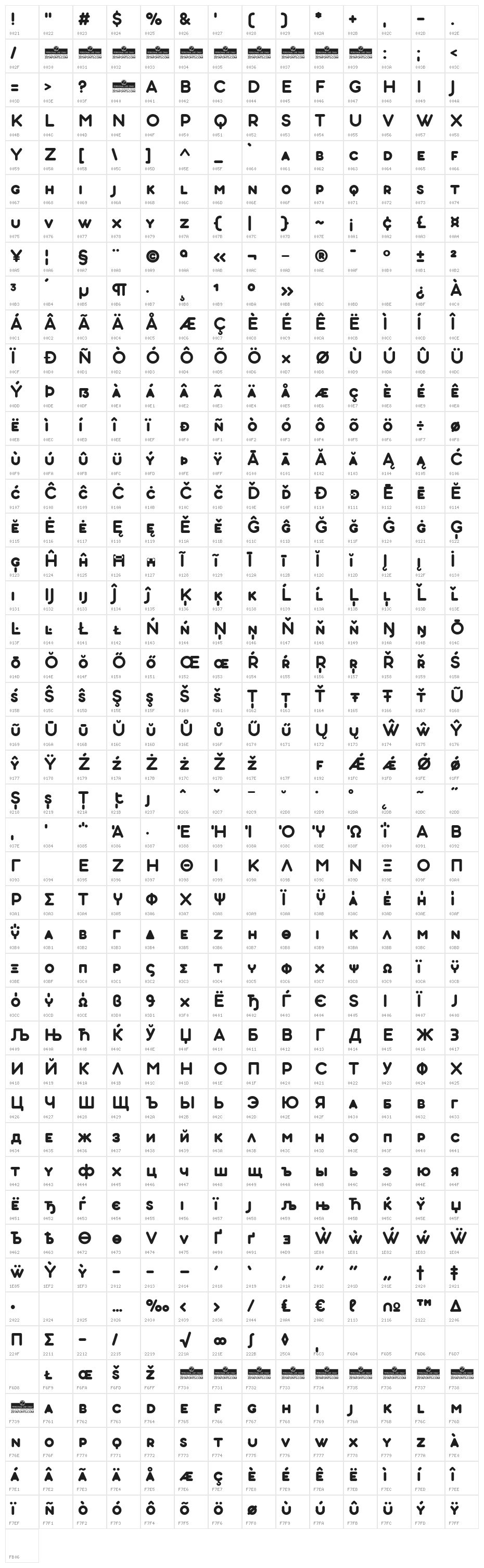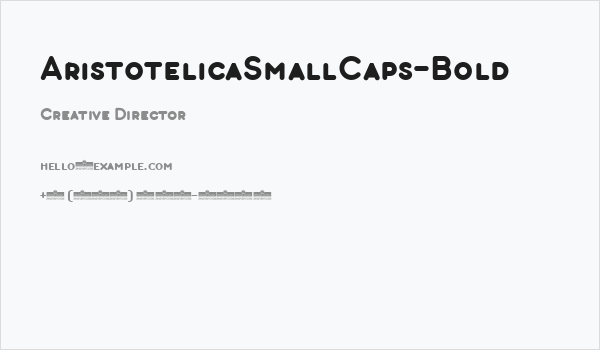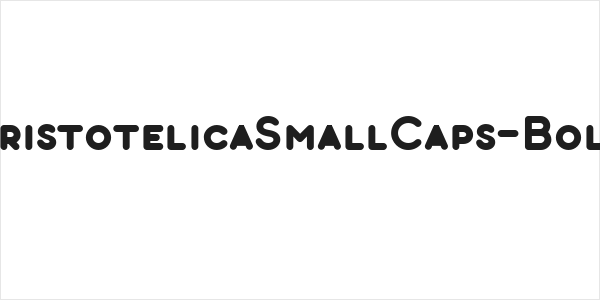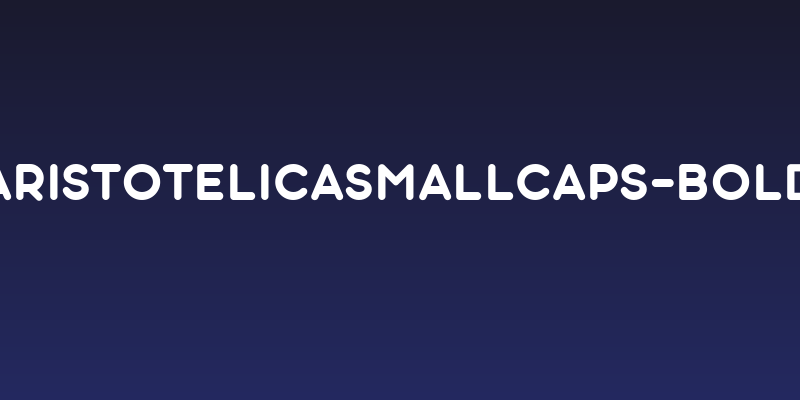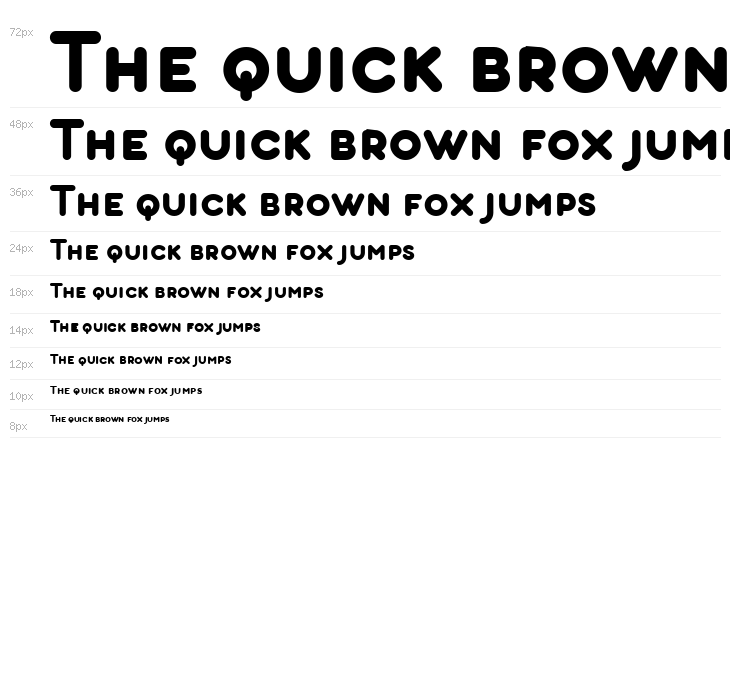
AristotelicaSmallCaps-Bold Font
AristotelicaSmallCaps-Bold Description
This font features a bold, rounded style with a modern and clean appearance. The uppercase letters are uniform in height, with a consistent stroke width that provides a strong visual impact. The characters are well-spaced, offering a balanced and readable text. The rounded edges give it a friendly and approachable feel, making it suitable for various design applications. The numerals and special characters maintain the same bold and rounded characteristics, ensuring consistency throughout the typeface.